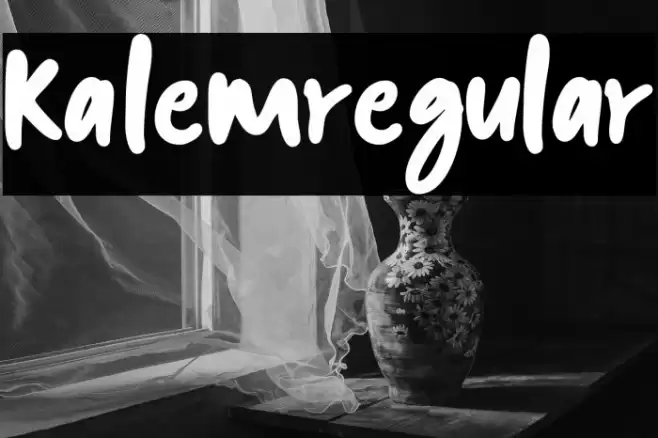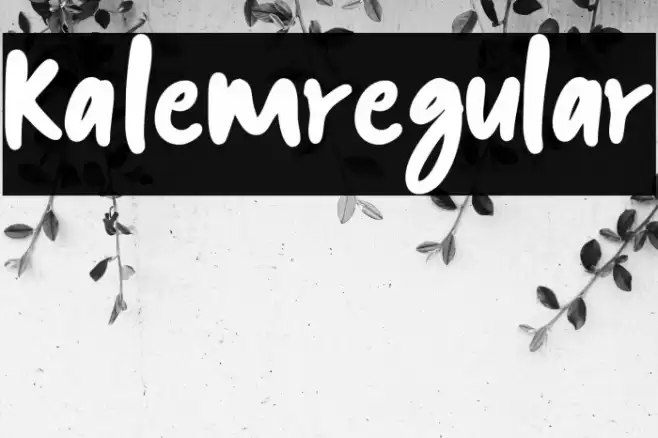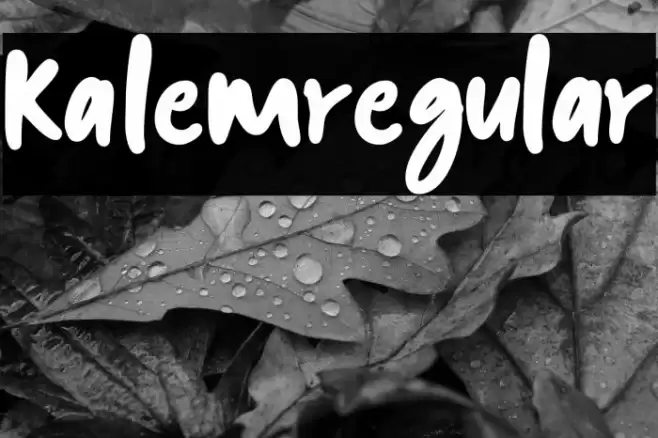
kalem-Regular Font
kalem-Regular Description
This font features a bold and expressive handwritten style, characterized by its fluid and dynamic strokes. The letters are crafted with a sense of movement, giving them a lively and energetic appearance. The uppercase and lowercase letters maintain a consistent style, with rounded edges and a slightly irregular baseline that enhances its casual and approachable feel. The numbers and special characters are equally expressive, fitting seamlessly with the overall aesthetic. This font is perfect for projects that require a personal touch, such as invitations, greeting cards, or branding materials that aim to convey warmth and creativity.
A bold, expressive handwritten font with fluid, dynamic strokes from Uncategorized fonts.
- Proposed Projects: Ideal for invitations, greeting cards, and creative branding materials.
- Use Case: Logos, Headlines, Creative projects